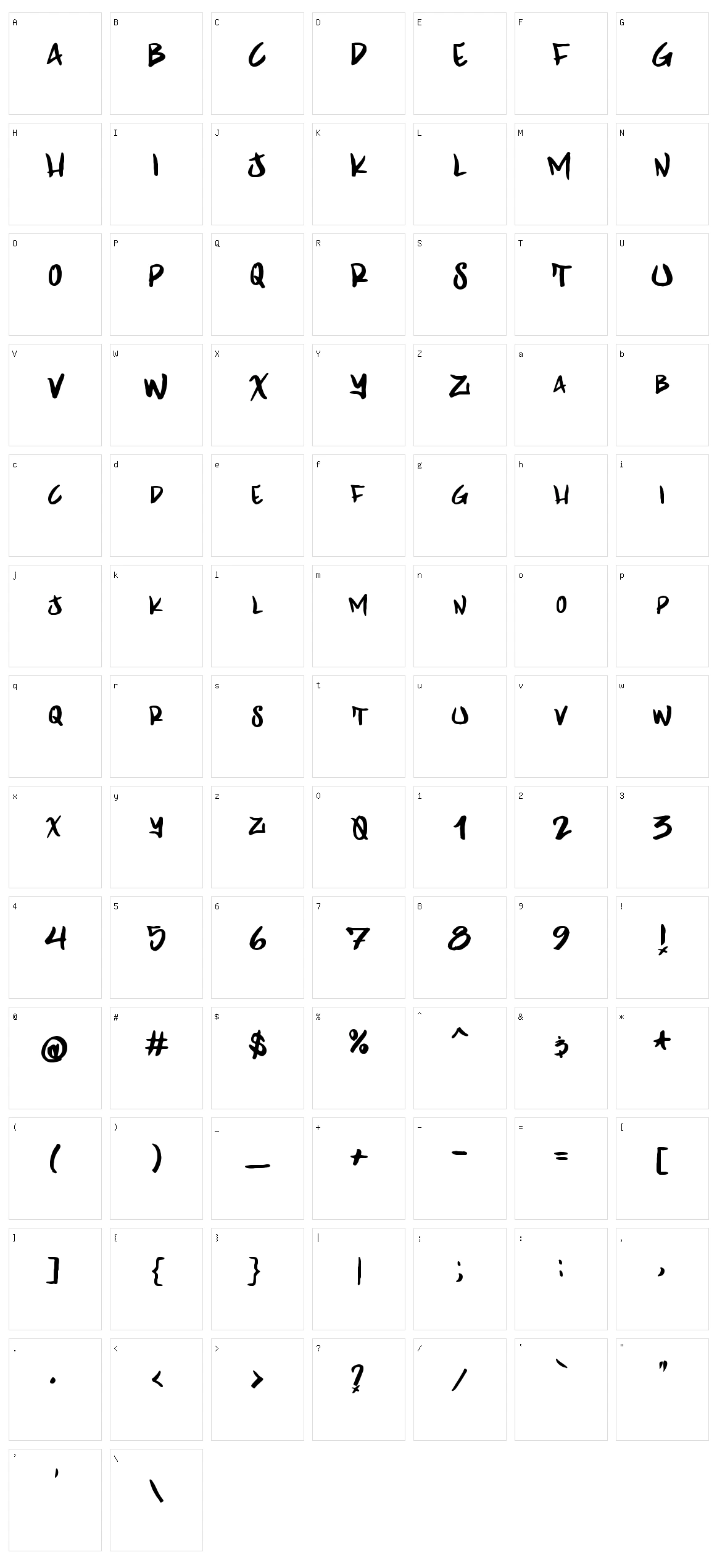
The free font Grape Dragon is carefully designed by Xerographer Fonts, showcasing a thoughtful balance of creativity and usability and falls under the Script font style. When you download the ZIP file, it contains only 19.39 KB of font files, making it lightweight and quick to download. Please review the license details below to understand permitted usage and distribution rights. If license information is not available, we recommend using this font for personal projects only or contacting the author directly for commercial usage permissions.